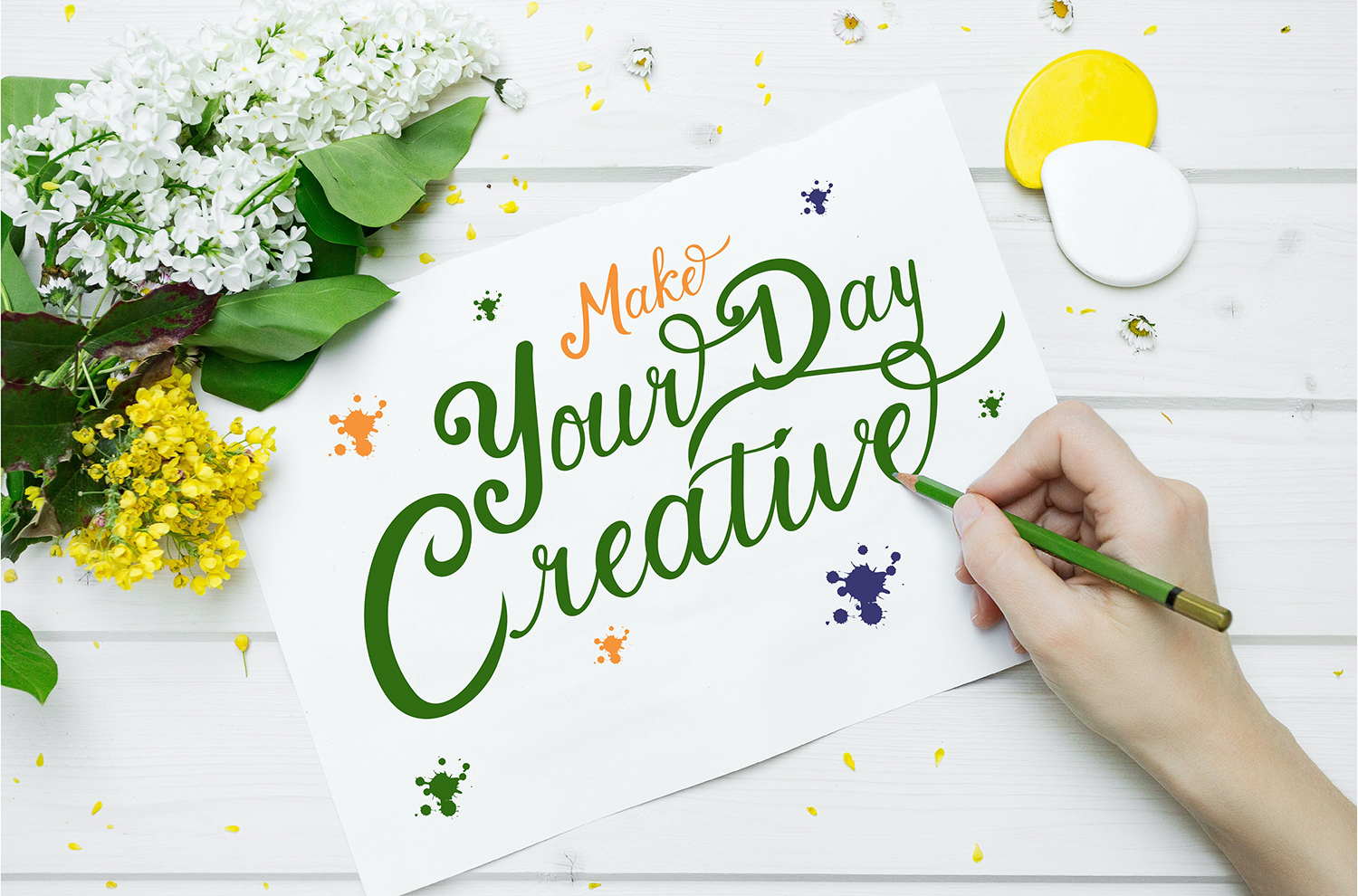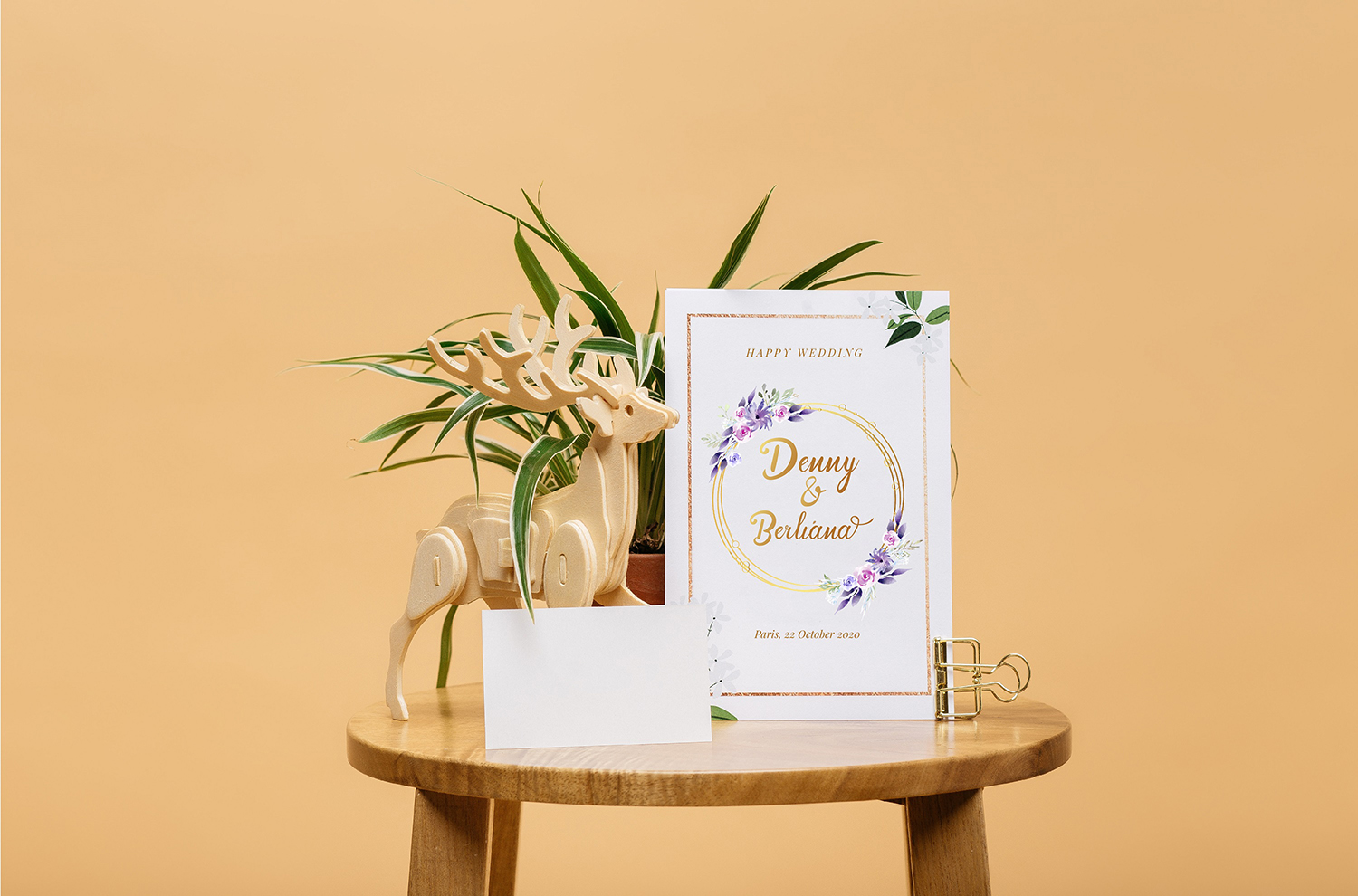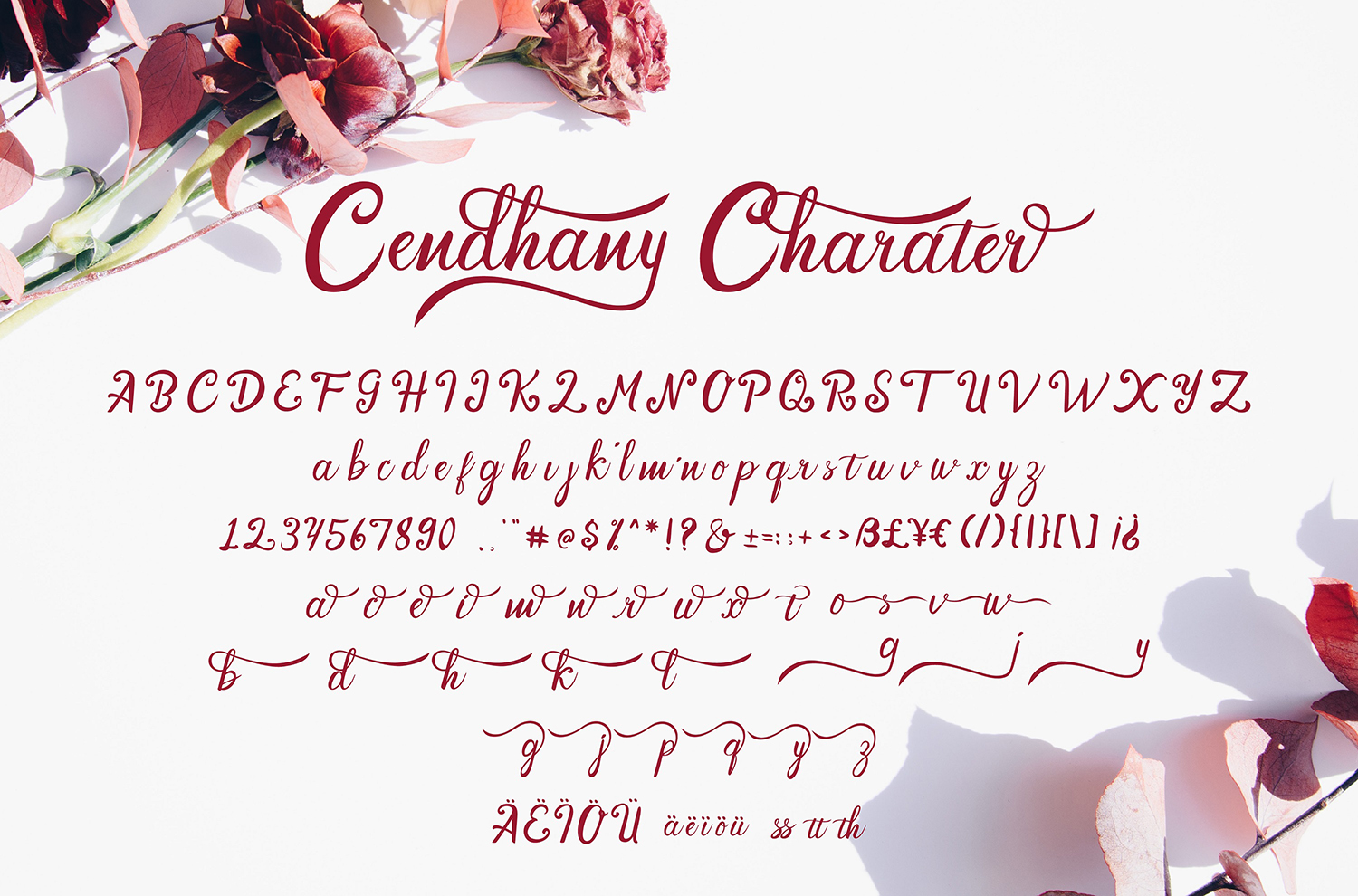
Cendhany Free Font
Cendhany Free Font is a hand-lettered typeface. This font is made by handwriting naturally using a brush pen so it can produce good quality fonts. They work perfectly for you who need a typeface for headline, logotype, apparel, invitation, branding, packaging, wedding, advertising, etc. This typeface comes in uppercase, lowercase, punctuation, symbols, numerals, alternate, ligatures, etc also support multilingual. This free typeface was designed by talented Javatype Studio. If you like it don’t forget to check out the full version.